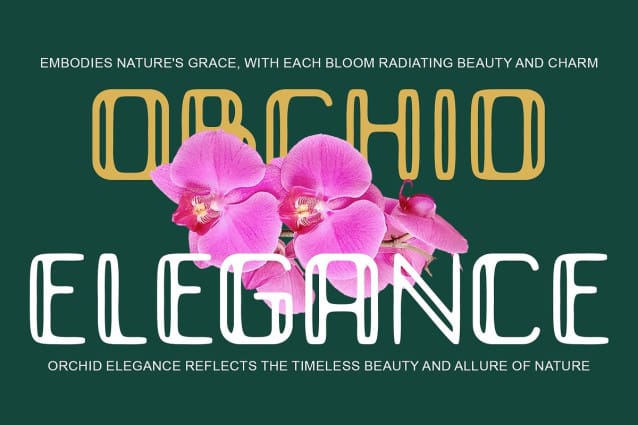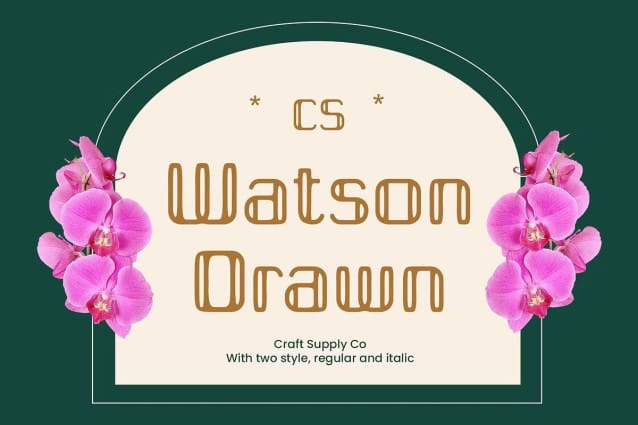
CS Watson Drawn Font
CS Watson Drawn Font is a modern sans-serif font that seamlessly blends the timeless elegance of Art Deco design with a unique, hand-drawn touch. Featuring clean, symmetrical geometric shapes and bold, decorative lines, this font offers a luxurious, high-end aesthetic that evokes sophistication and refinement.
Art Deco Influence with a Modern Twist Inspired by the geometric precision and bold lines of Art Deco, this drawn font incorporates the key elements of this iconic design style—sharp angles, symmetrical forms, and ornate details. The result is a visually striking font that exudes luxury while maintaining a modern appeal. The clear-cut, sleek lines offer a sense of stability and strength, while the decorative elements provide the flair and opulence that Art Deco is known for.
Hand-Drawn Effect for Unique, Personal Character What sets this art deco font apart is its hand-drawn effect, which gives each letter a personal, crafted appearance. The dynamic, slightly organic qualities of the drawn effect soften the sharp geometric forms, adding warmth and character to the design. This combination of bold, structured design with fluid, artistic details creates a font that feels both polished and unique—perfect for branding or any design project that requires a touch of authenticity and creativity.